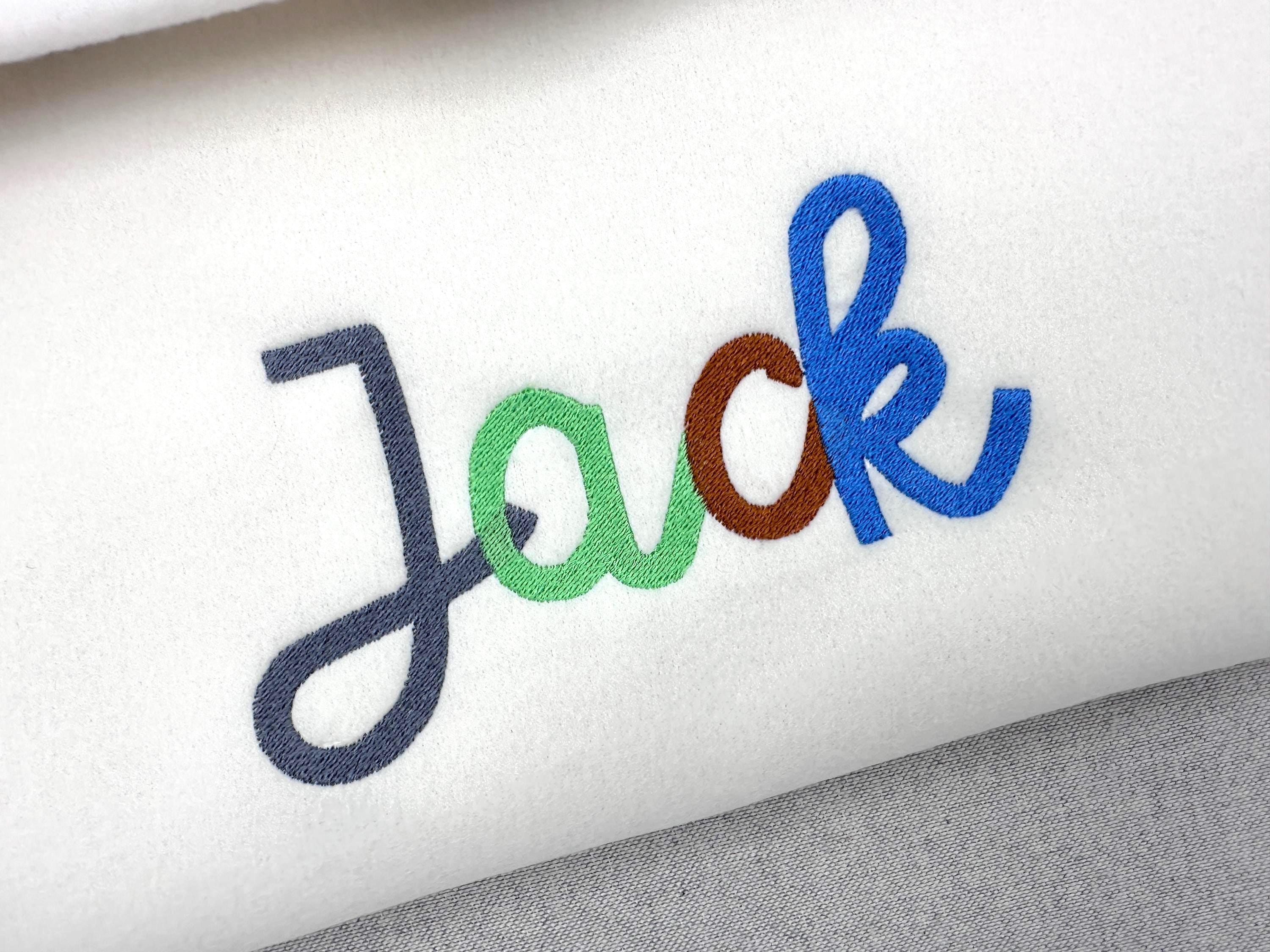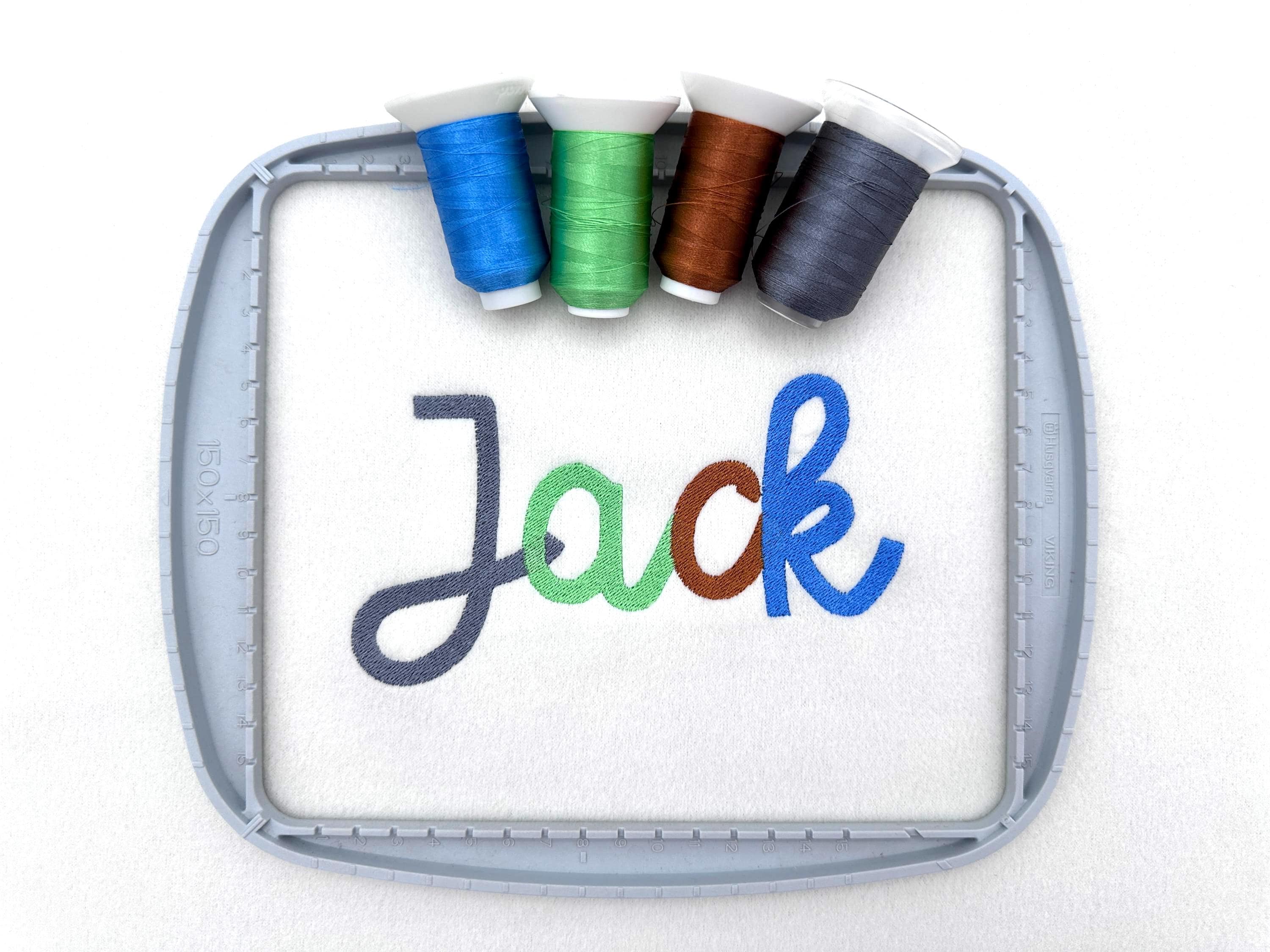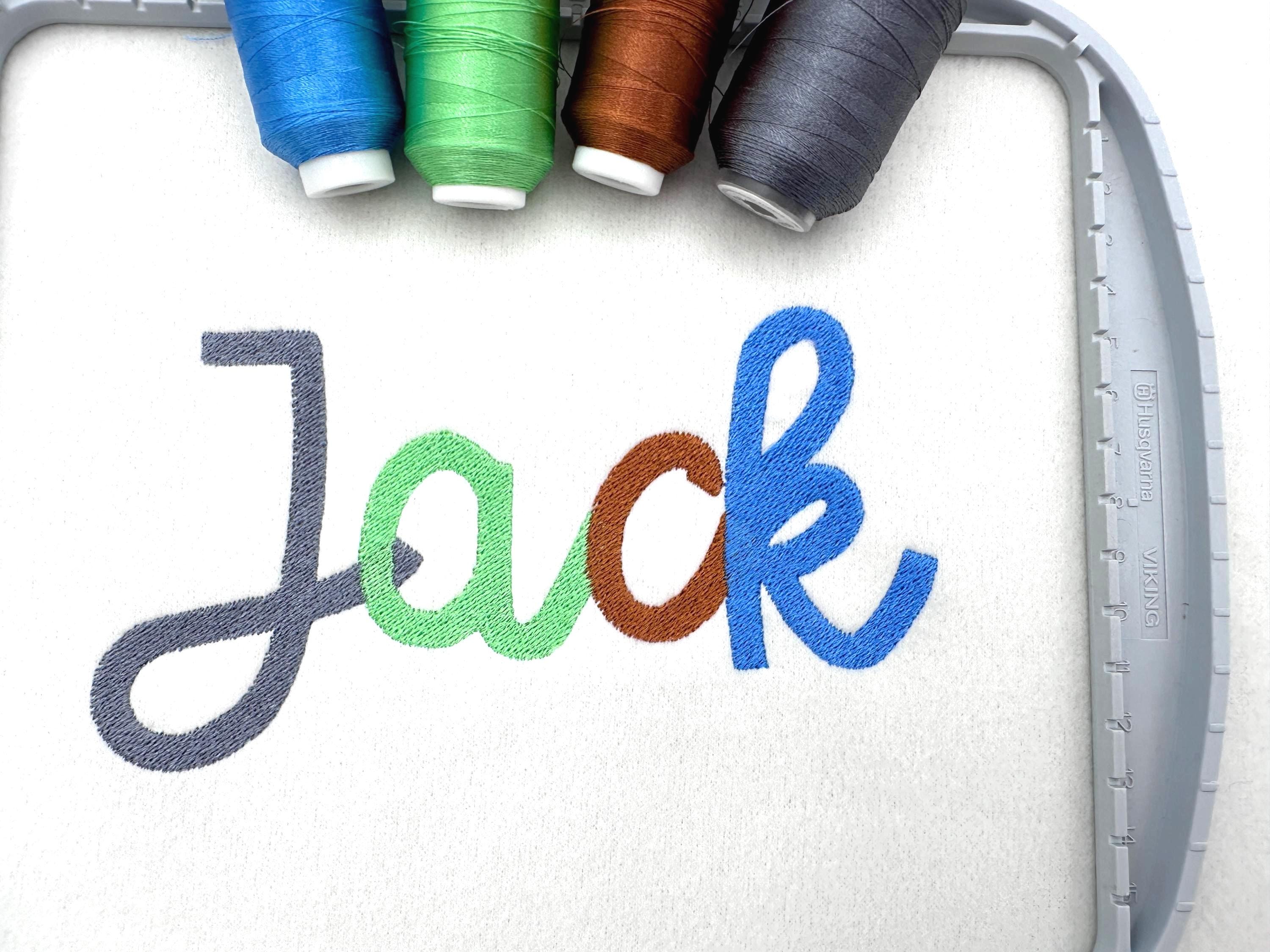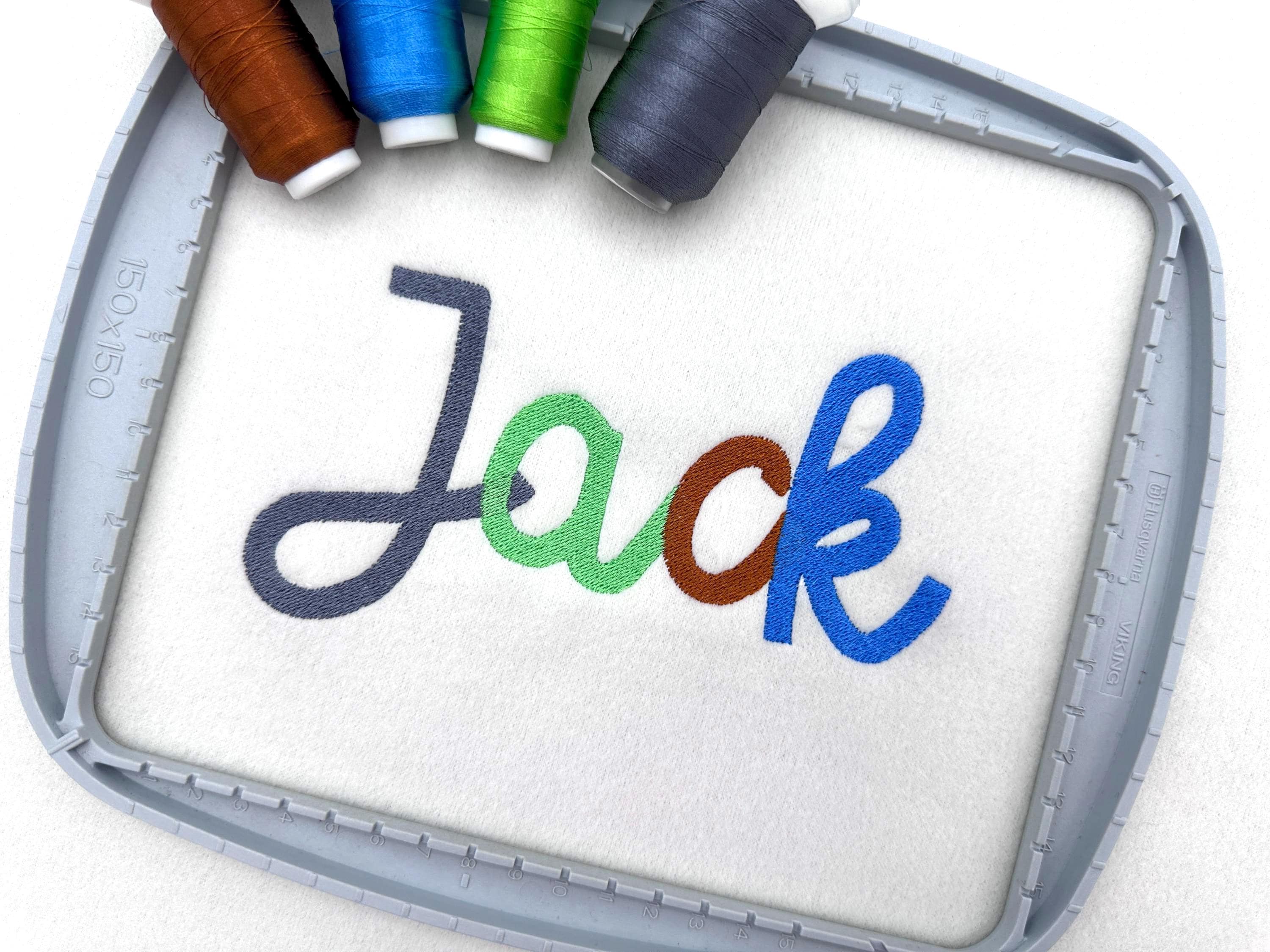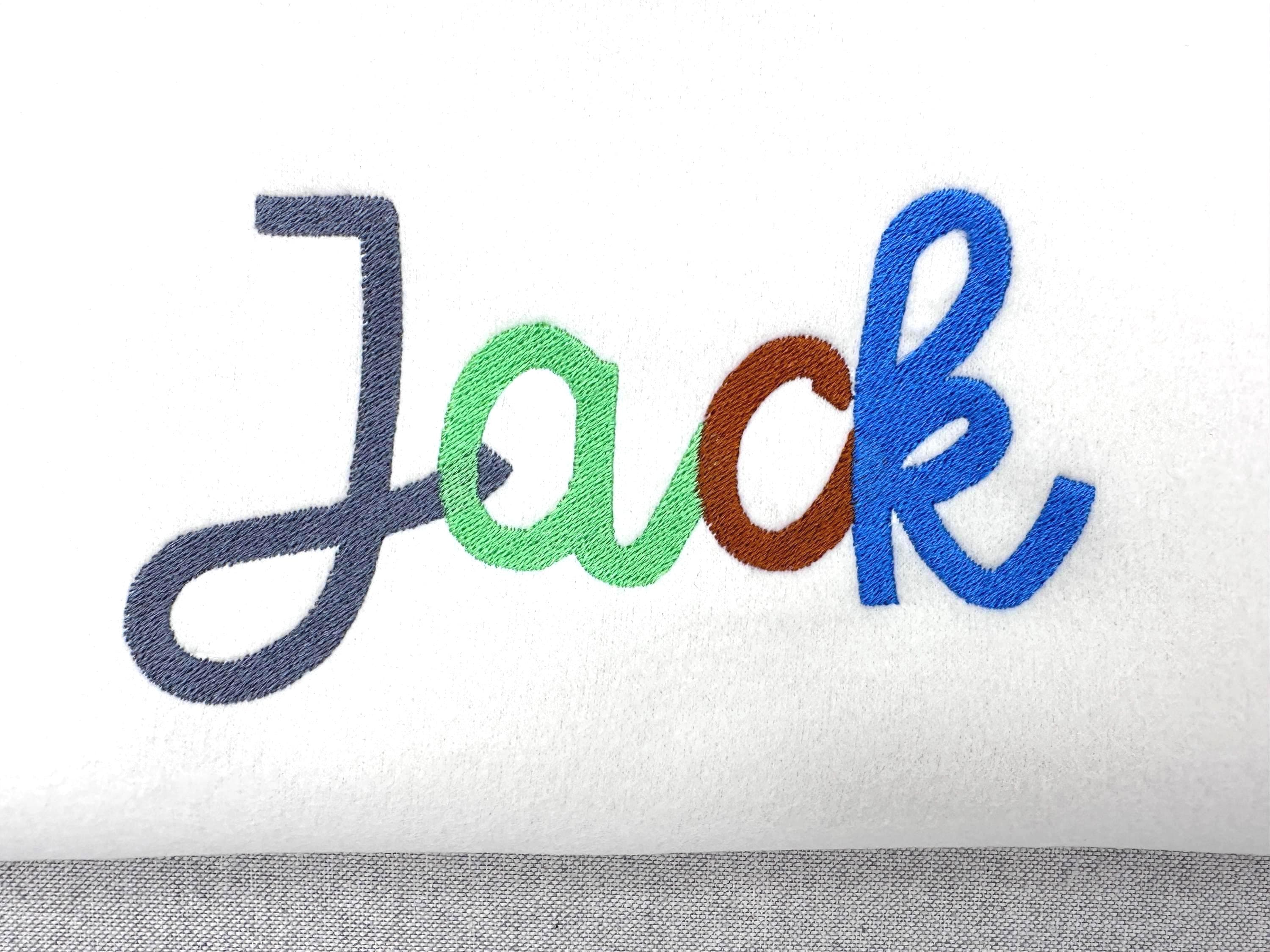
Handwritten FONT Scribble fill stitch Alphabet letters Monogram machine embroidery designs script bold font sizes 2.2 up to 4.9 inches BX
Handwritten FONT Scribble fill stitch Alphabet letters Monogram machine embroidery designs script bold font sizes 2.2 up to 4.9 inches, and BX
Whole alphabet Aa-Zz uppercase and lowercase letters, numbers 0-9, and punctuation.